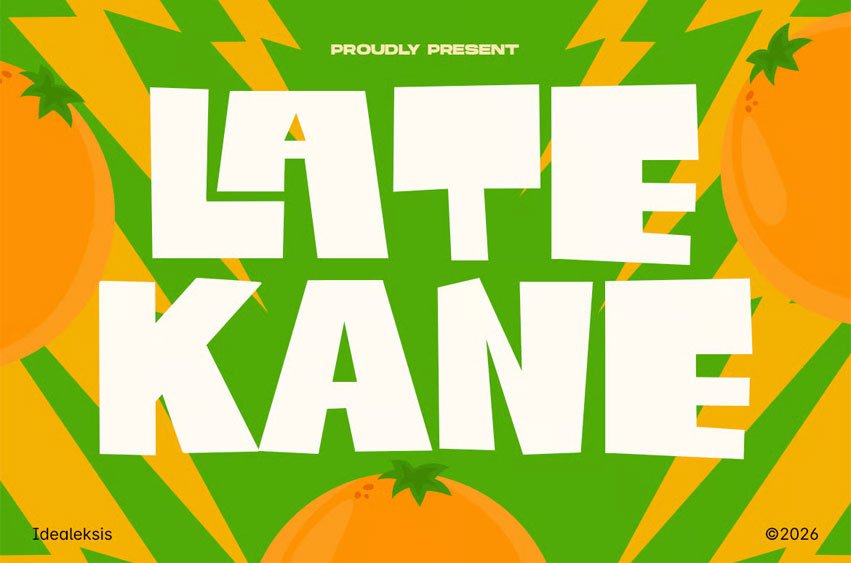
Late Kane Font showcases ultra-heavy, blocky letterforms with a distinct hand-cut or paper-craft aesthetic. Its strokes are thick and uniform, creating a high-impact visual presence with extremely tight negative space and minimal counters.
The terminals are sharp and angular, contributing to a dynamic and punchy feel. The irregular alignment and varying widths of the glyphs give it a playful yet powerful character, making it ideal for headlines, posters, and branding that requires a bold, modern, and energetic statement. The lack of serifs and the simplified geometry emphasize its raw, graphic nature.
Perfect for
- Bakery and café branding
- Food and beverage logos
- Restaurant menus and signage
- Coffee shop and donut shop designs
- Food packaging and labels
- Social media food promotions
- Kitchen-themed posters and prints
- Culinary blogs and recipe graphics